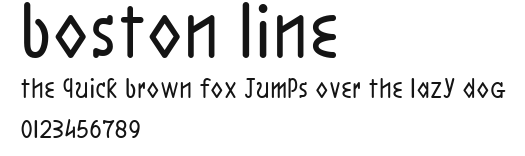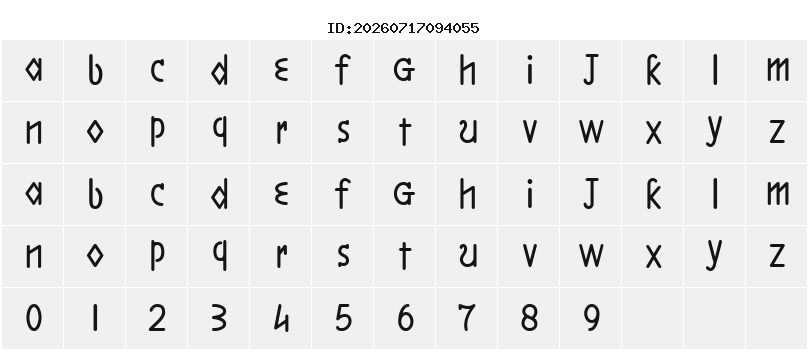
About Boston Line.ttf
Boston Line.ttf is a modern, elegant sans-serif font designed for ultimate readability and visual harmony. Perfect for branding, headlines, web design, and print materials.